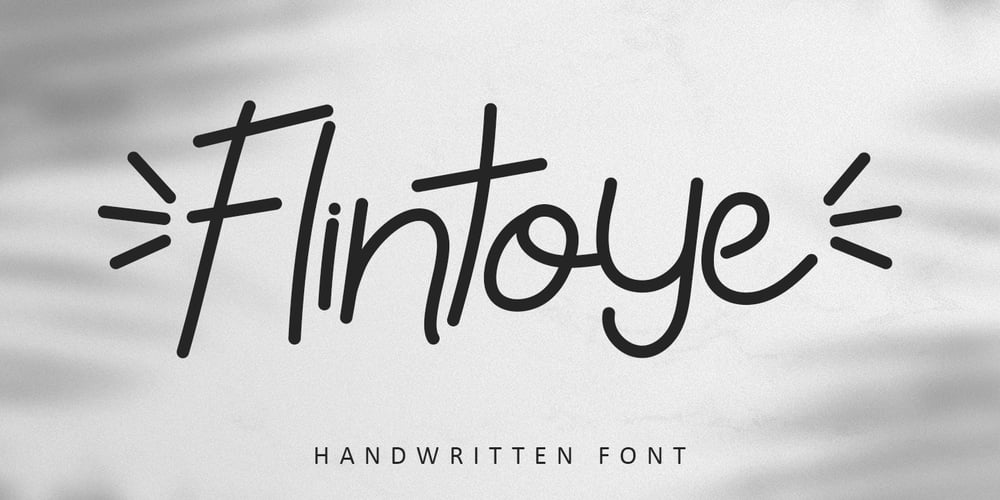
Flintoye
Flintoye font
Flintoye Font Family was designed by Bayu Suwirya and published by Illushvara. Flintoye contains 1 styles and family package options. Flintoye is a sweet and friendly handwritten font. Its natural and unique style makes it incredibly fitting to a large pool of designs. The only limit is your imagination!